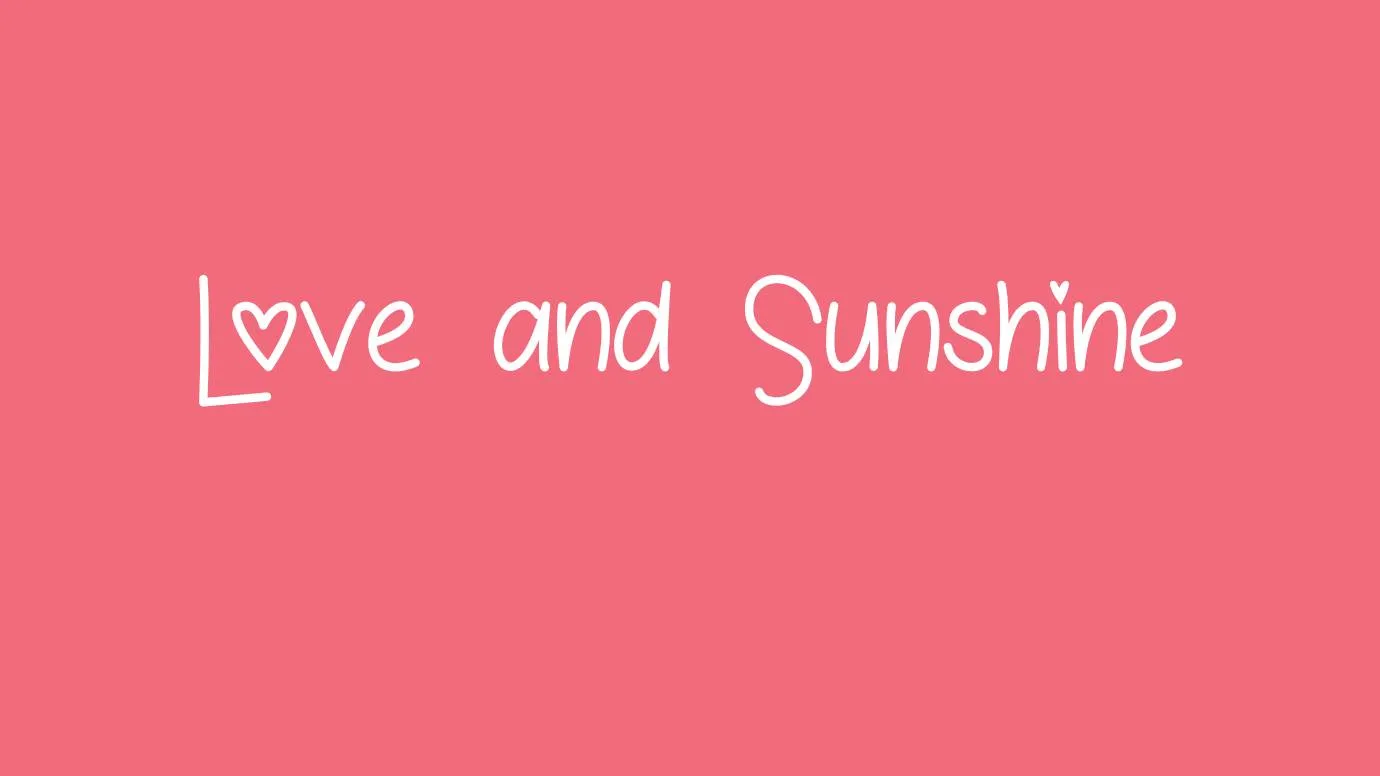
Love and Sunshine Font Family is a very attractive handwritten typeface. This beautiful font was designed by Misti’s Font. You can make so many interesting projects by using this font.
This amazing font can also be used for pairing with other fonts like gashina font to give a more attractive look to your project.
Love and Sunshine Font
NameLove and Sunshine Font
DesignerMisti’s Font
TypeHandwritten